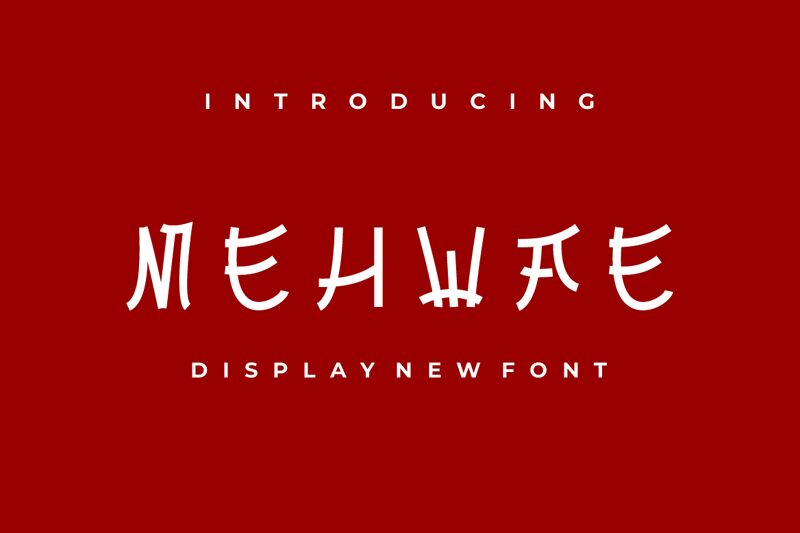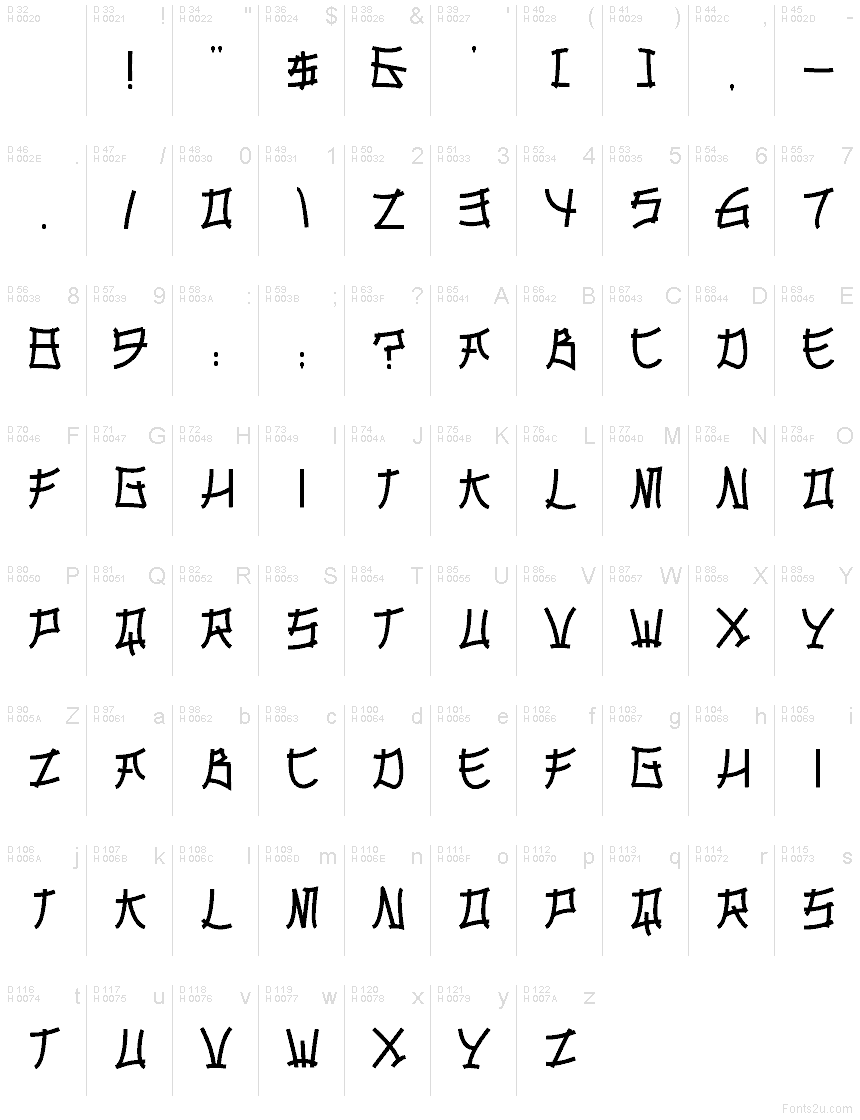
Mehwae
Mehwae font by Gilang Ternadho is a free decorative Japanese-style typeface with a bold, brushy attitude. The letters feel like they’ve been painted in a single confident stroke—crooked, slightly uneven, and full of movement—giving your text an instant hit of hand-drawn energy. Those tall, stretched forms and rough ink-like curves create a dramatic rhythm that pulls the eye across a word or logo in one smooth sweep.
Using Mehwae, this free font shines on ramen packaging, Asian fusion restaurant branding, street-food stalls, event posters, YouTube thumbnails, and game titles that need a stylized “neo-Japanese” vibe. It also works beautifully for headers on menus or flyers when supported by a clean geometric sans for body copy. Keep Mehwae large and generous with spacing so every jagged, brushlike curve can breathe and stay legible.